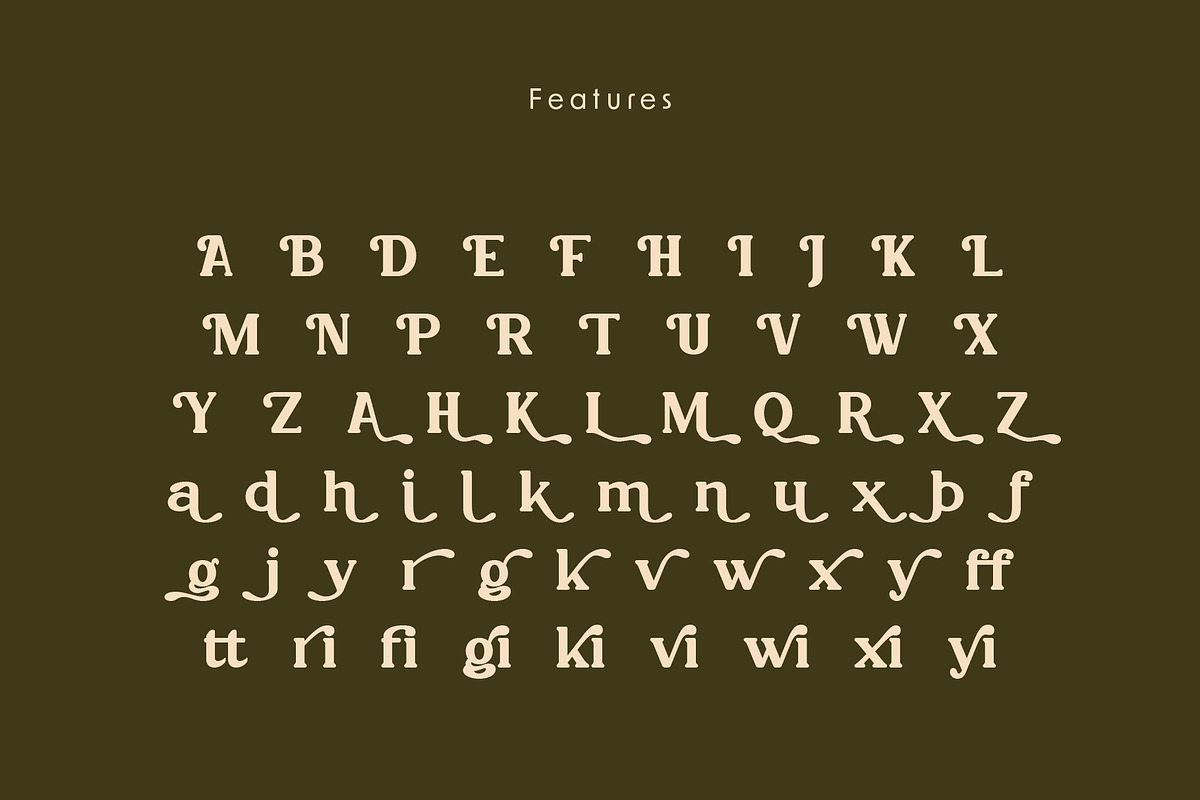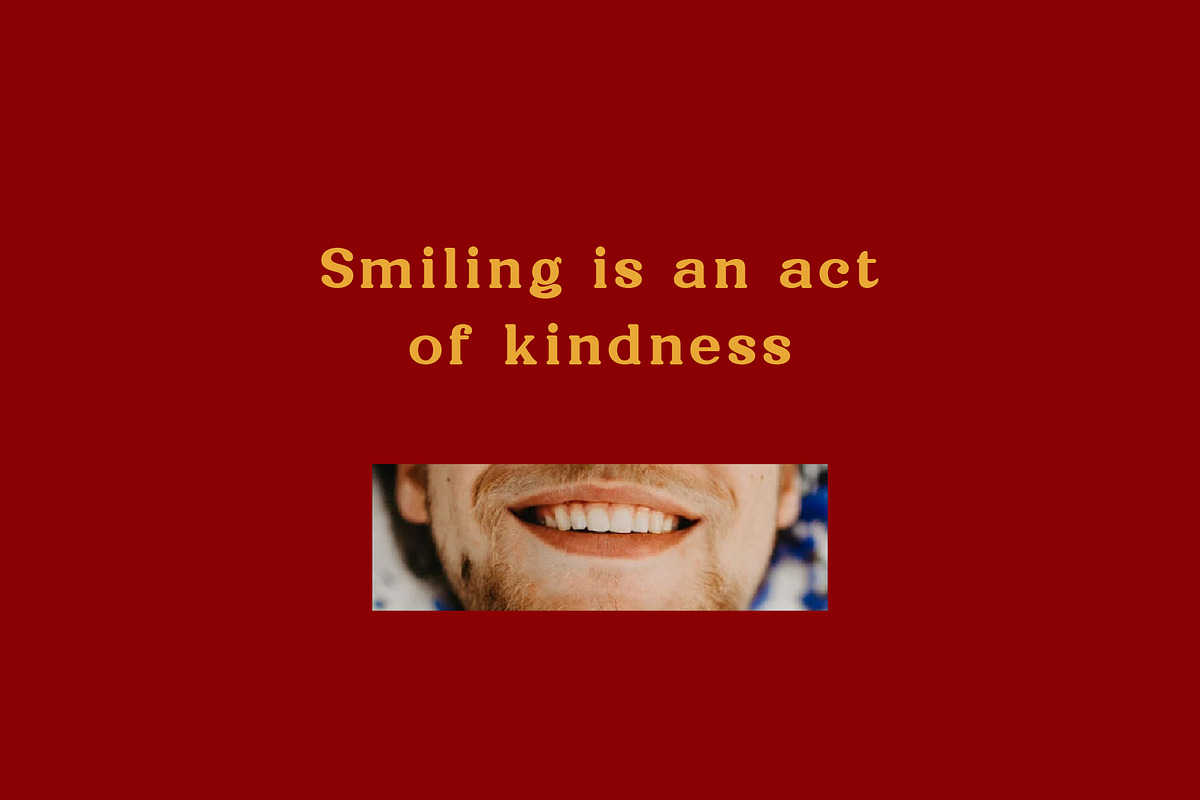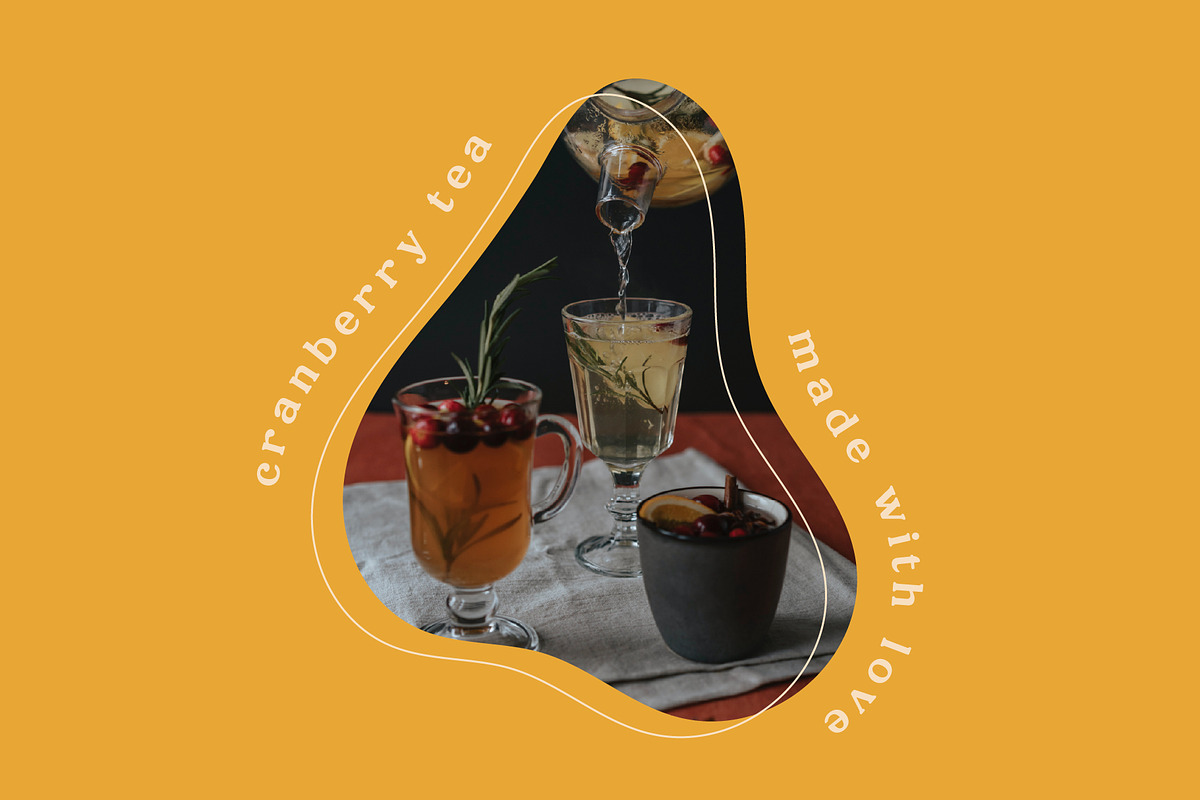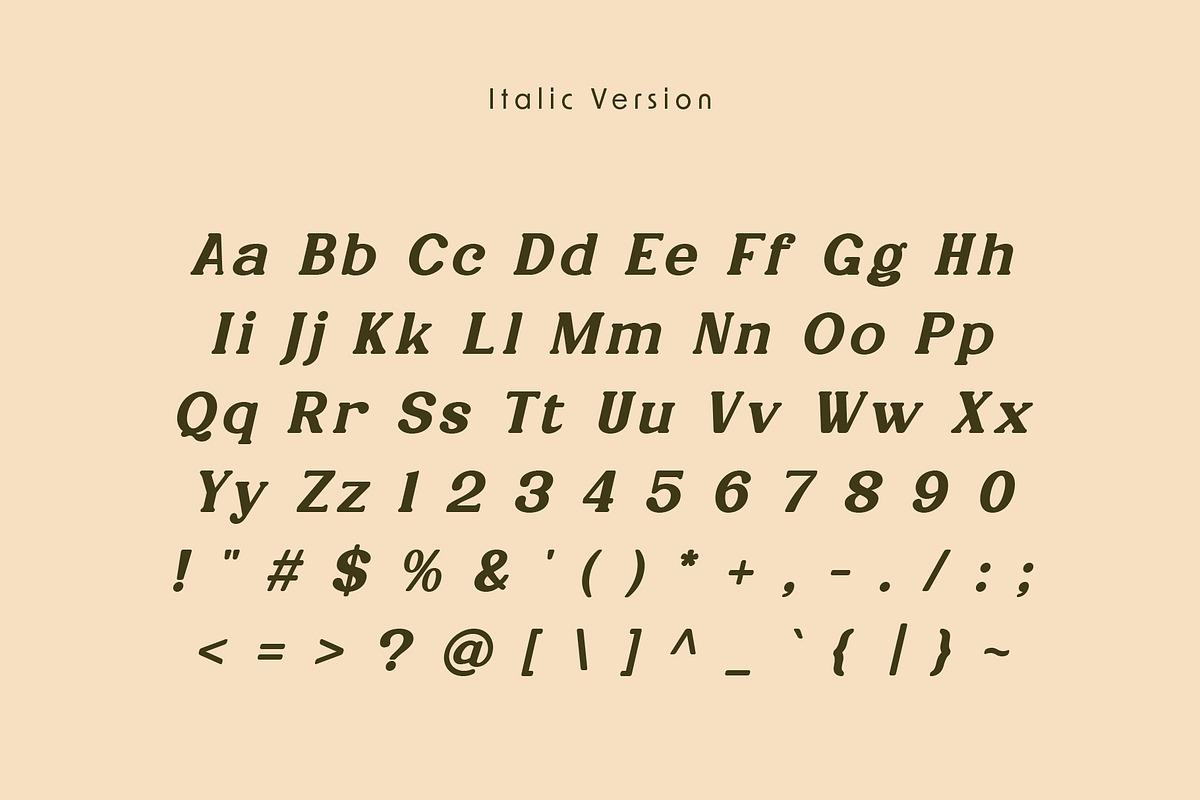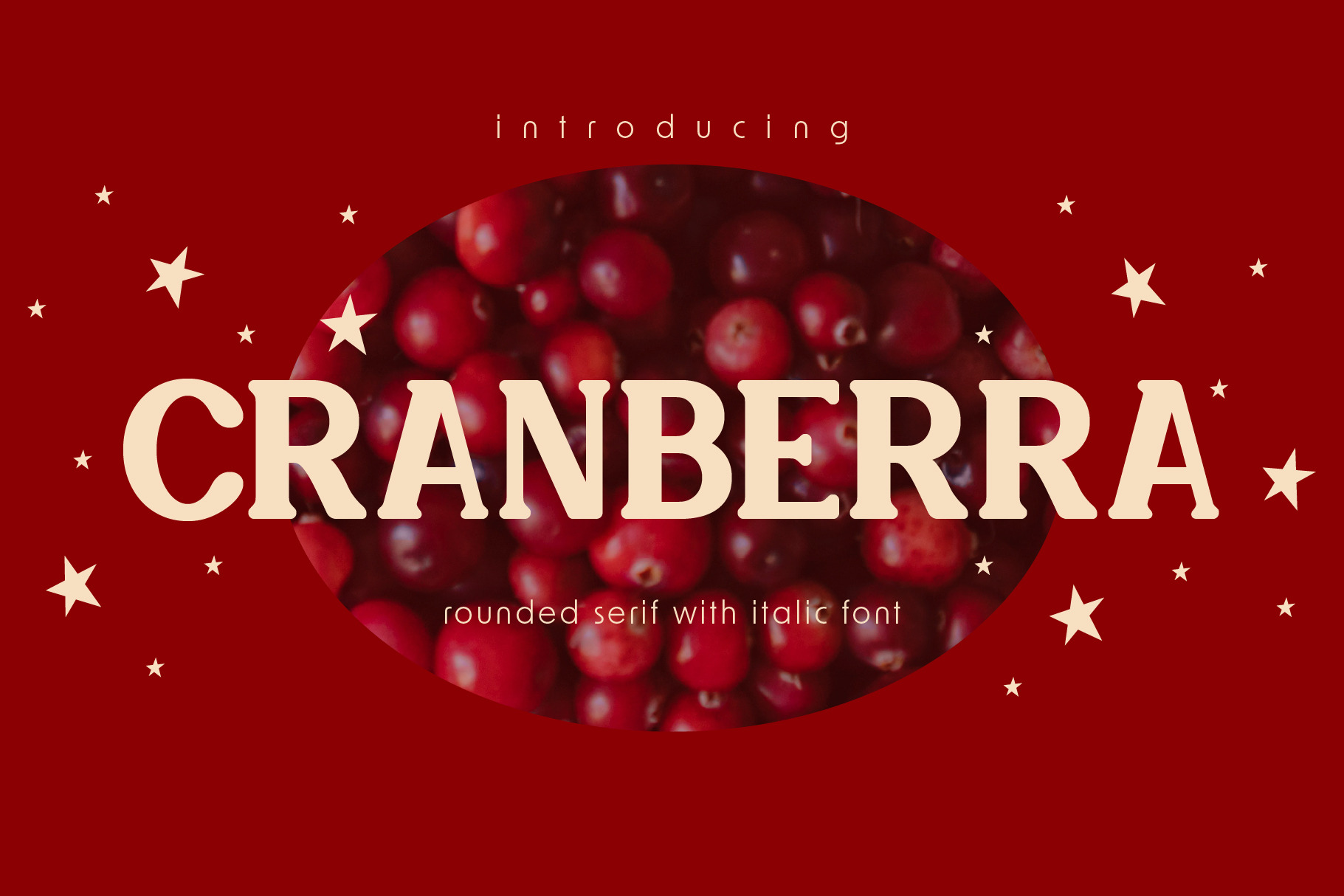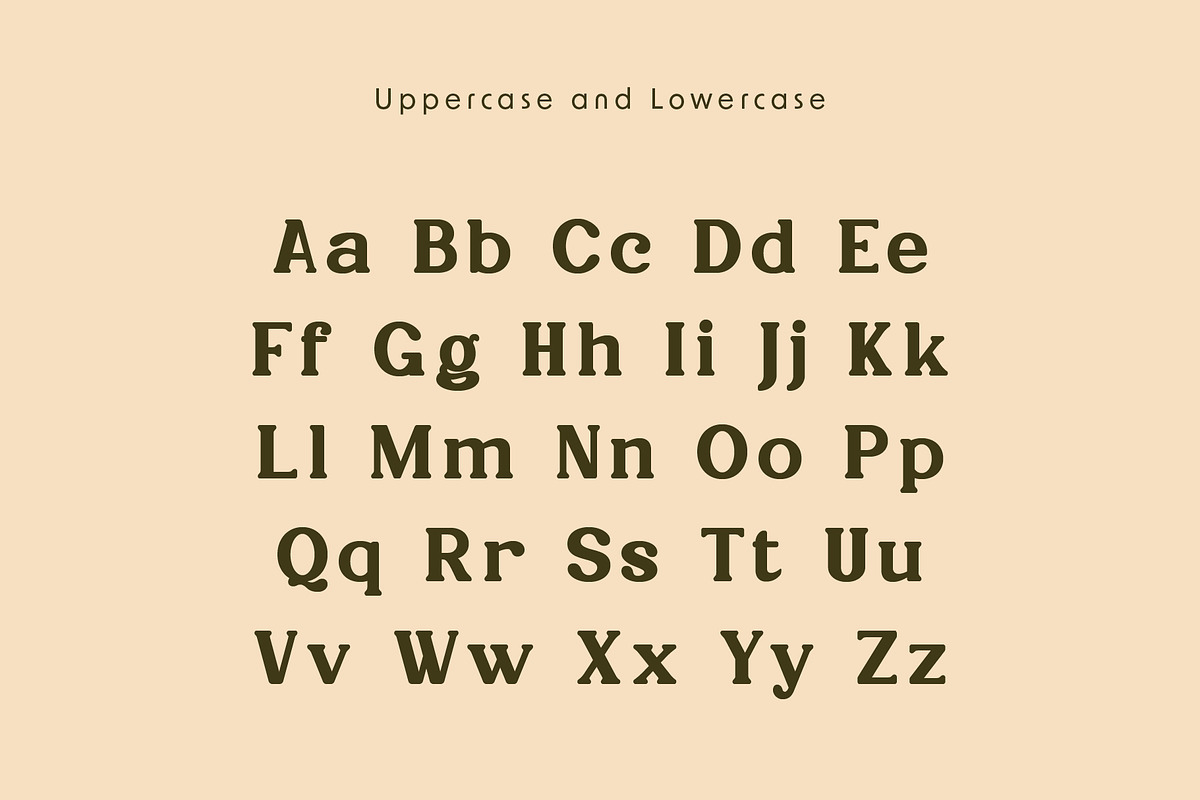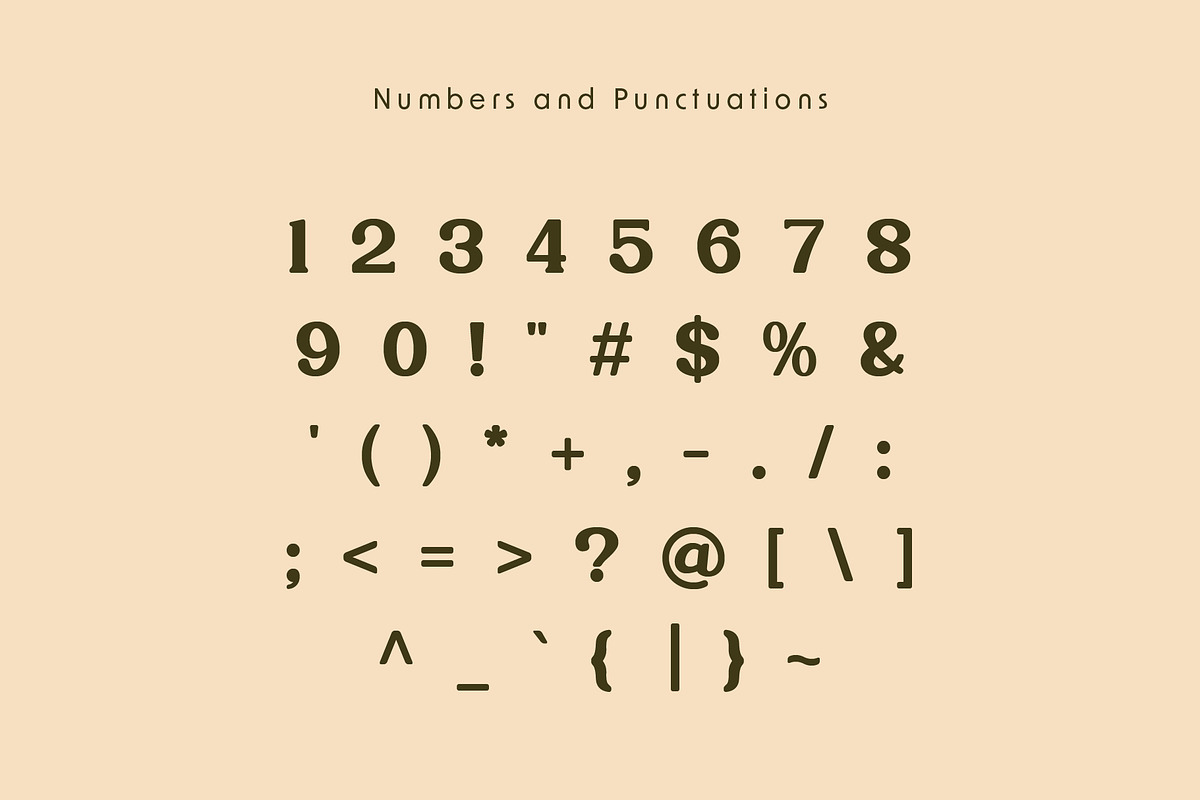
Cranberra - Rounded Serif Font
Check out this super sleek Modern Rounded Serif font that's all about minimalist vibes! The Cranberry Font has arrived to take your branding and poster design to the next level!
Cranberra Font is the really nice font for those who want to make a statement without being too flashy. Its rounded and modern aesthetic make it a great choice for logos, headlines, and body text alike. With its features, you can easily create a cohesive look for your brand or project. Plus, its simplicity makes it easy to read and comprehend, so you can be sure your message is getting across loud and clear.
Comes with :
- Italic
- numerals and punctuation